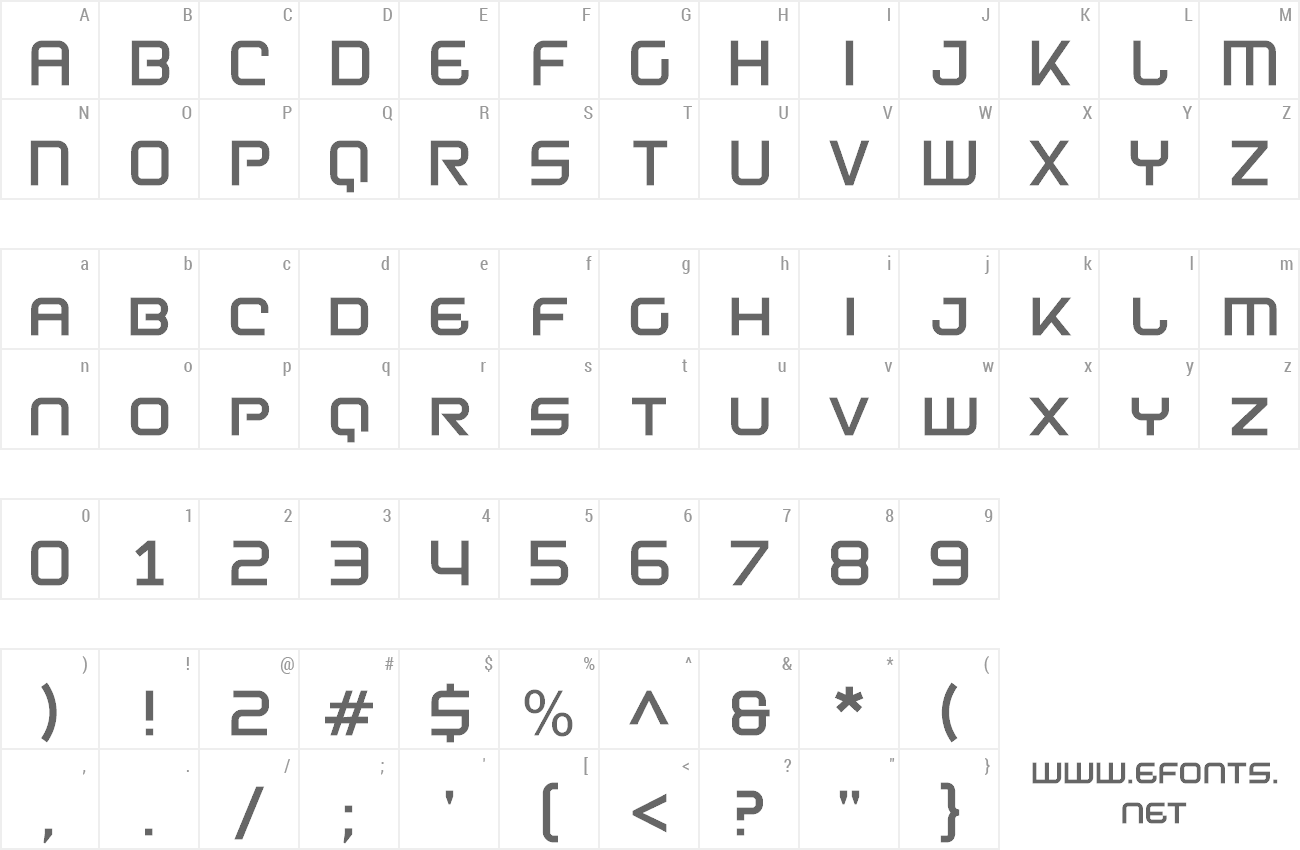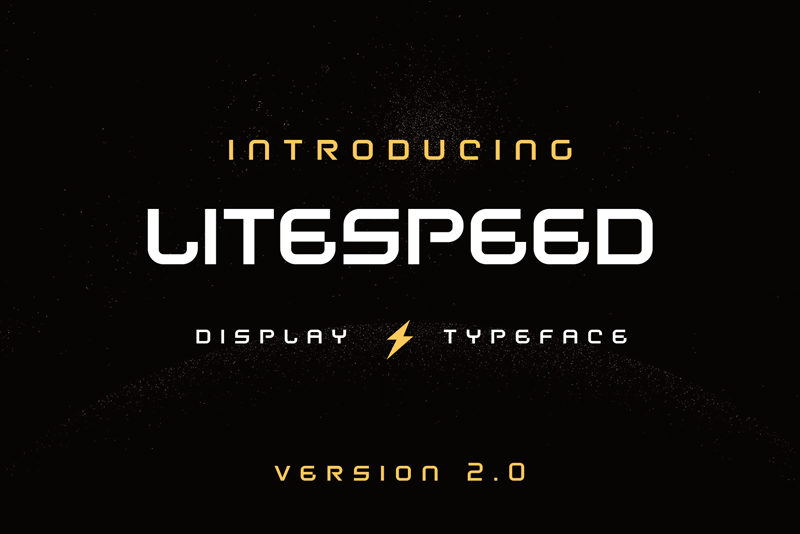
Preview and download Litespeed Font. Created by Tiago Sá in Techno Sci-fi styles with Donationware license.
Litespeed is a futuristic geometric typeface with a bold, technical look. Perfect for logos, headlines, titles, and display use. Includes 2 styles: Bold and Bold Italic. |